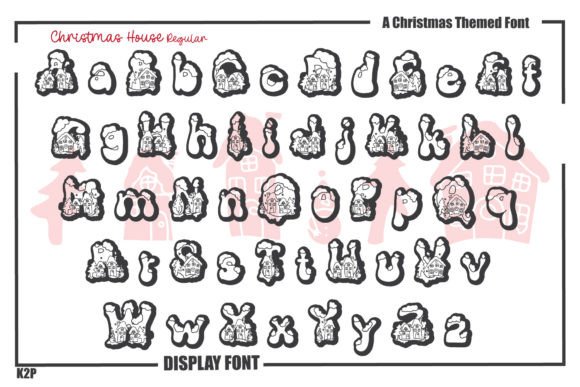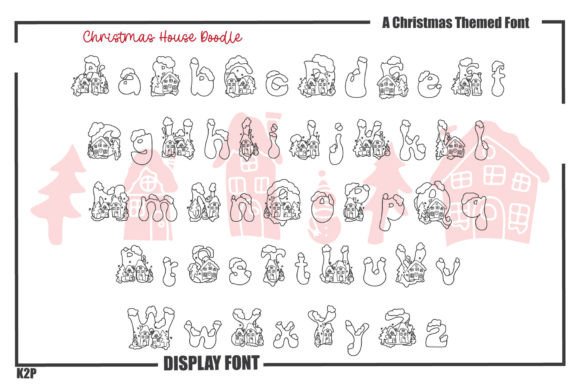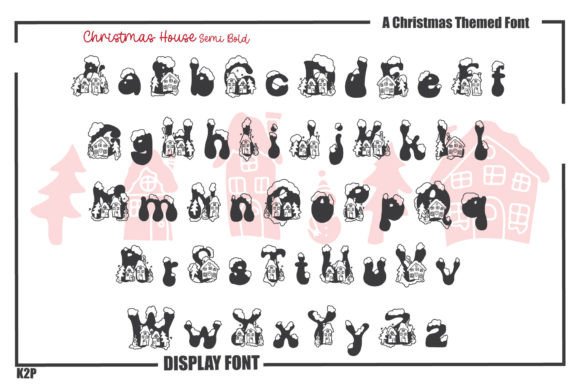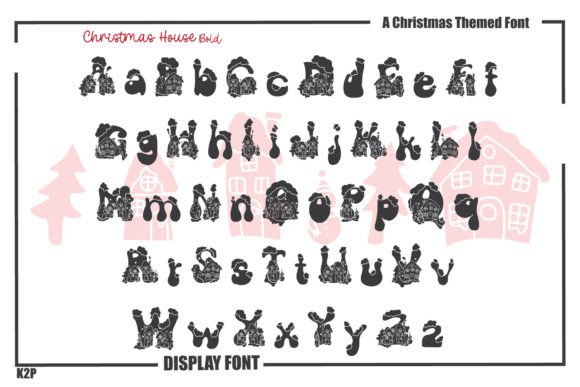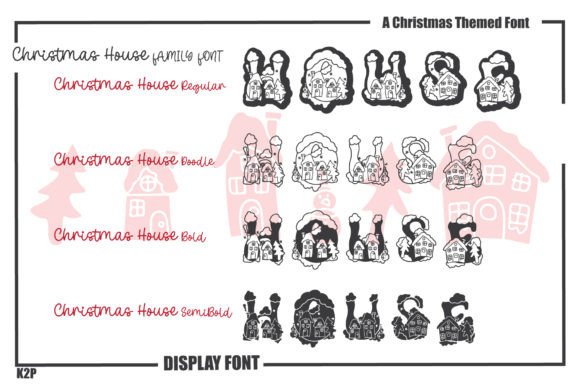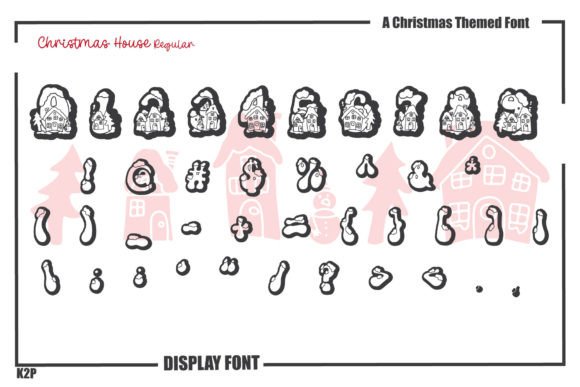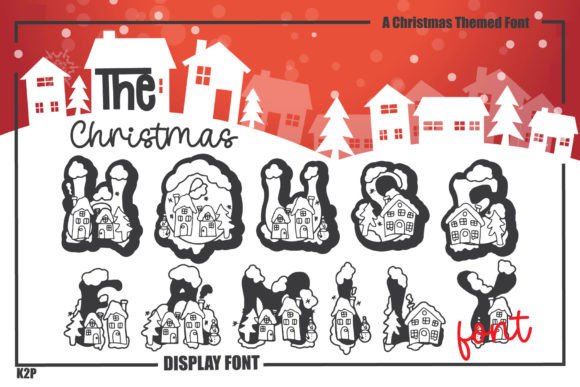
Christmas House Font: A Fun and Unique Decorative Font for Holiday Designs
Are you looking for a font that can add a touch of festive fun to your holiday designs? Look no further than the Christmas House font! This decorative font is perfect for creating unique and eye-catching designs, particularly those related to Christmas. In this article, we’ll take a closer look at the Christmas House font, its features, and how you can use it to create amazing holiday designs.
What is Christmas House Font?
Christmas House is a fun and incredibly unique decorative font that is sure to make your designs stand out. Its playful and festive style makes it perfect for use in holiday-themed designs, such as Christmas cards, decorations, and craft projects. The font features a distinctive and charming style that is reminiscent of traditional holiday decorations.
Features of Christmas House Font
The Christmas House font has several features that make it a great choice for holiday designs. Some of its key features include:
- Unique and playful style: The Christmas House font has a distinctive and charming style that is sure to add a touch of festive fun to your designs.
- Decorative and ornate: The font features intricate and ornate details that make it perfect for use in holiday-themed designs.
- High-quality and crisp: The font is designed to be high-quality and crisp, making it perfect for use in both digital and print designs.
How to Use Christmas House Font
The Christmas House font can be used for a wide range of holiday design projects, including:
- Christmas cards and invitations: Use the Christmas House font to create unique and eye-catching Christmas cards and invitations.
- Holiday decorations: The font can be used to create festive holiday decorations, such as garlands, banners, and signs.
- Craft projects: The Christmas House font is perfect for use in craft projects, such as scrapbooking, paper crafting, and DIY decorations.
- Digital designs: The font can be used in digital designs, such as social media graphics, blog posts, and website headers.
Tips and Ideas for Using Christmas House Font
Here are some tips and ideas for using the Christmas House font:
- Pair with other festive fonts: Pair the Christmas House font with other festive fonts to create a unique and eye-catching design.
- Use in combination with images: Use the Christmas House font in combination with images, such as holiday-themed illustrations or photographs.
- Add a pop of color: Add a pop of color to your design by using the Christmas House font in a bold and bright color.
- Experiment with different sizes and styles: Experiment with different sizes and styles of the Christmas House font to create a unique and eye-catching design.
The Christmas House font is a fun and unique decorative font that is perfect for use in holiday designs. Its playful and festive style makes it a great choice for creating unique and eye-catching designs, particularly those related to Christmas. With its ease of use and high-quality design, the Christmas House font is a must-have for designers and crafters looking to add a touch of festive fun to their holiday designs.